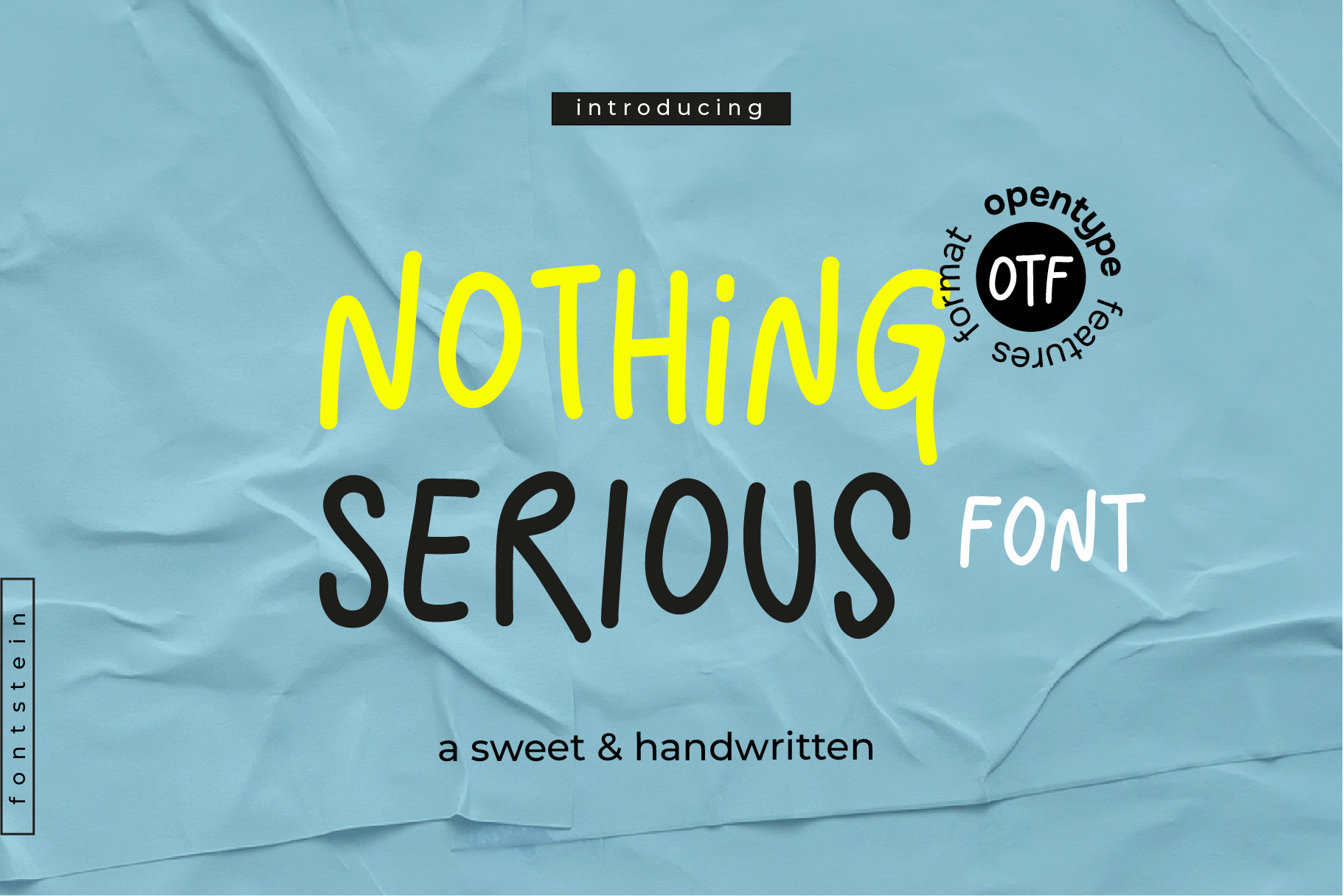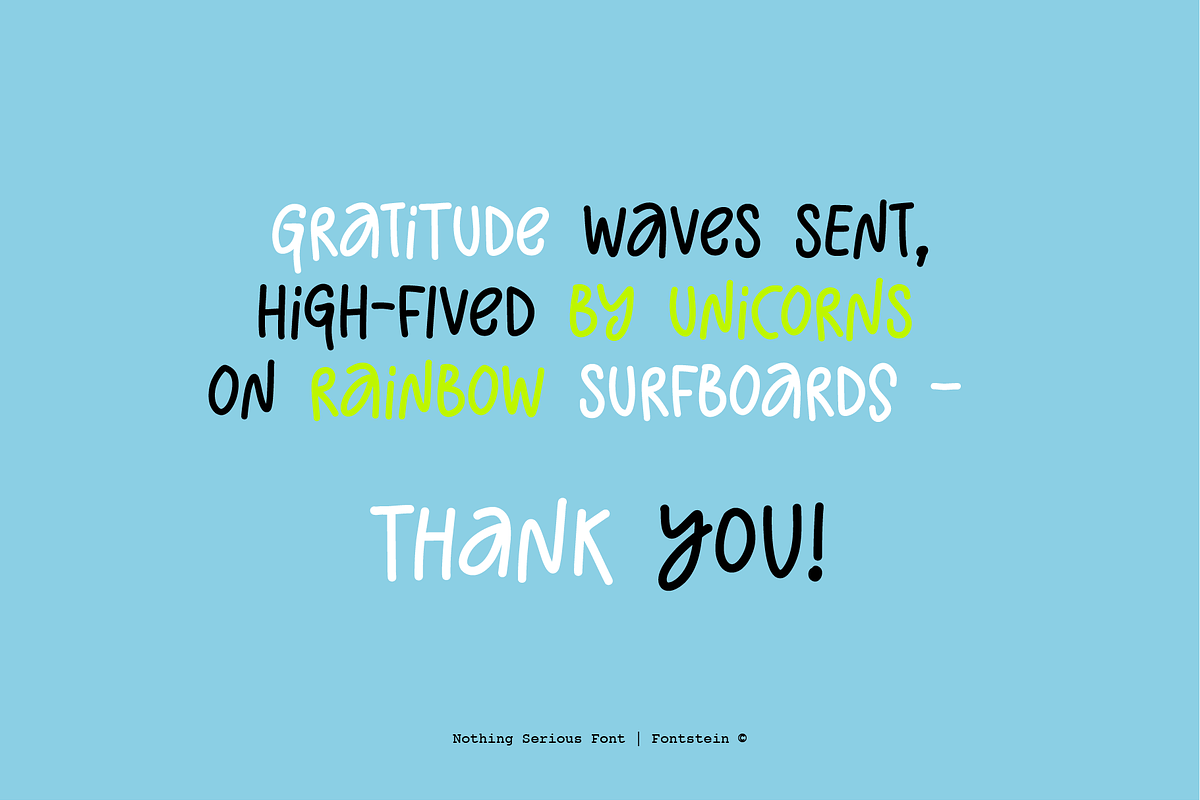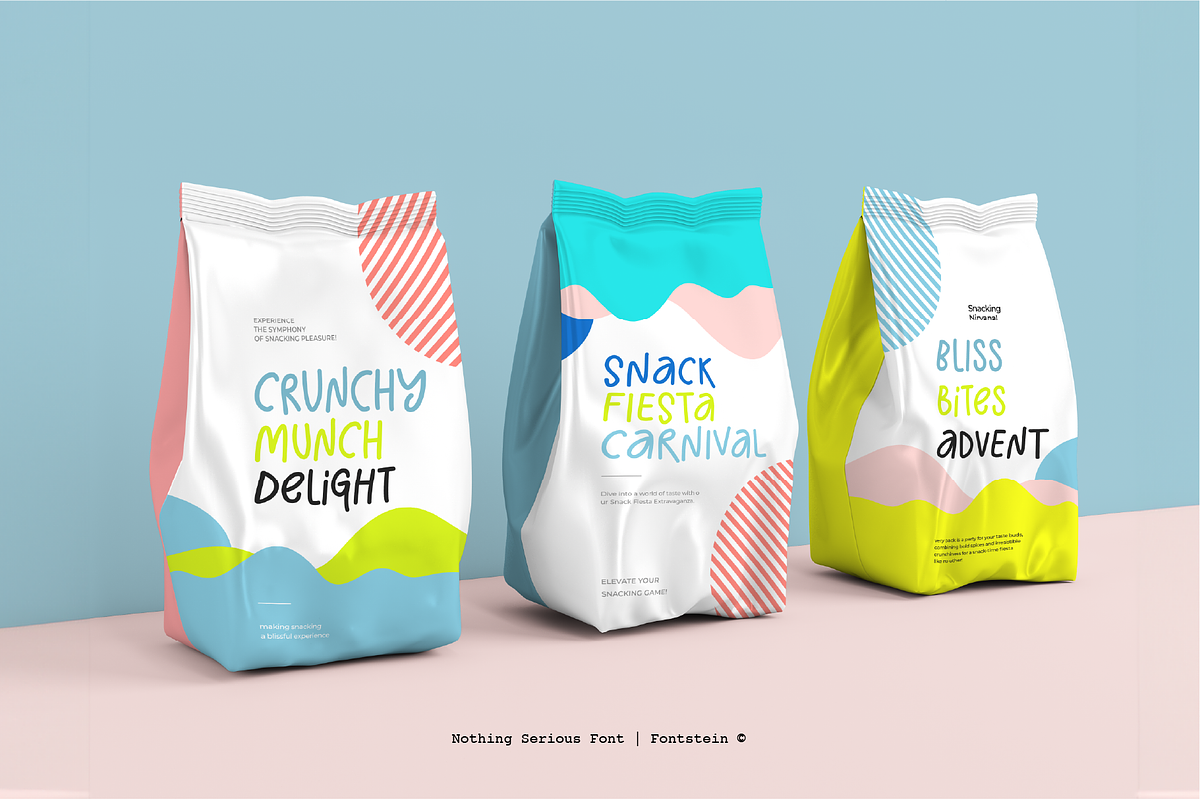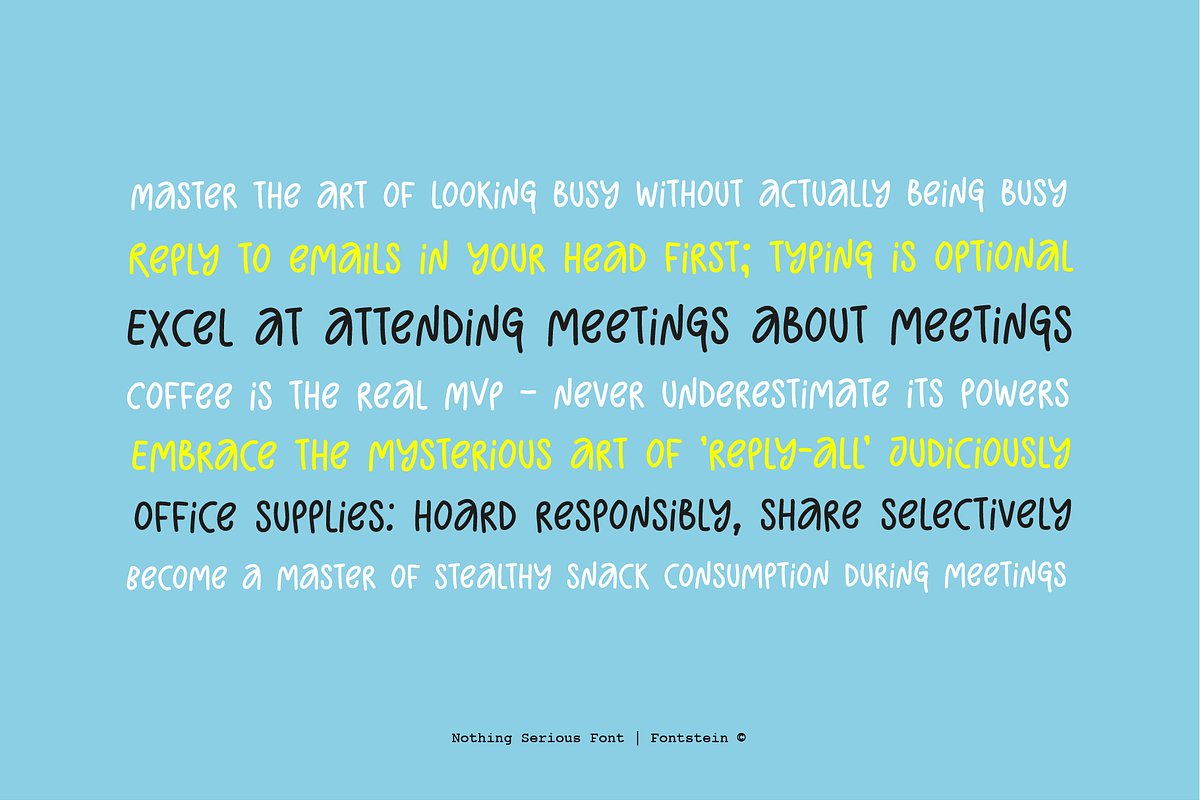
Meet Nothing Serious - the carefree handwritten font where uppercase reigns supreme. Flip the script and dabble with lowercase, unlocking a fresh twist to your quotes. Because who said being serious was any fun? Elevate your design game with Nothing Serious Font and let your creativity dance freely between the lines.
Unlock boundless creativity with Nothing Serious - your go-to for contemporary branding, quirky quotes, social media stunners, invitations, greeting cards, bold headlines, and an array of playful designs.
This font speaks different languages. Test it out in the preview below – challenge accepted!